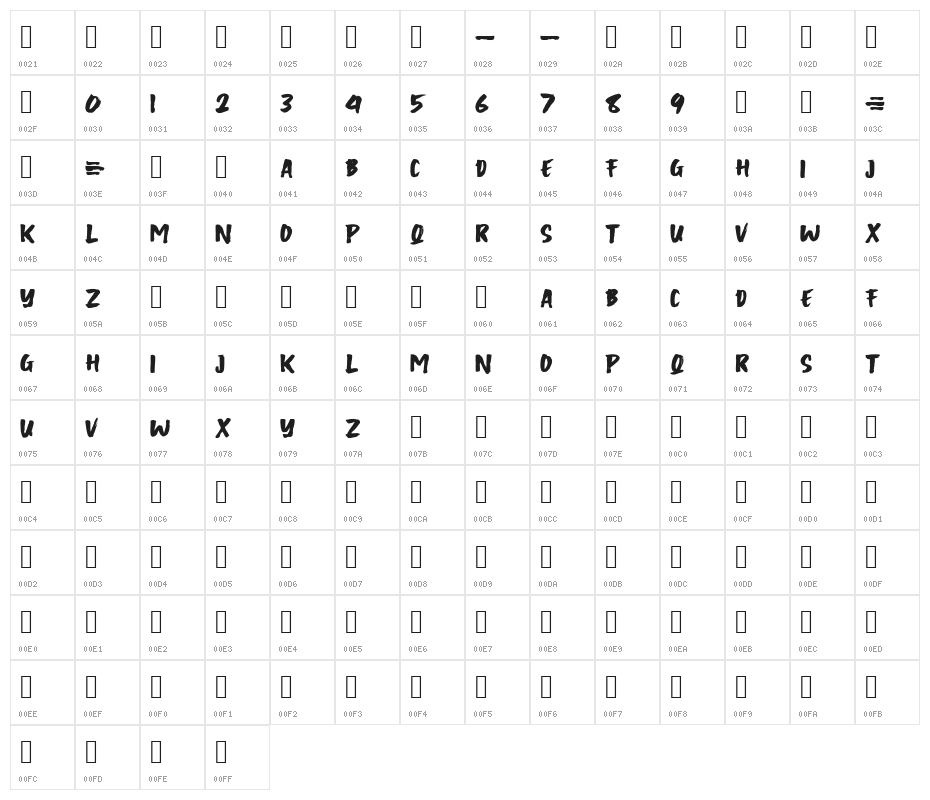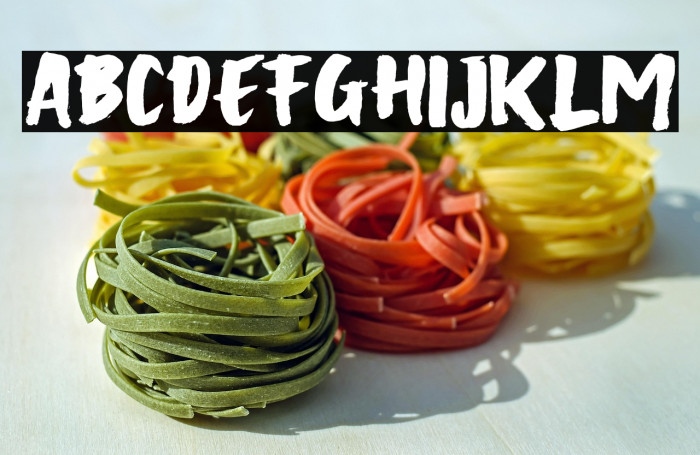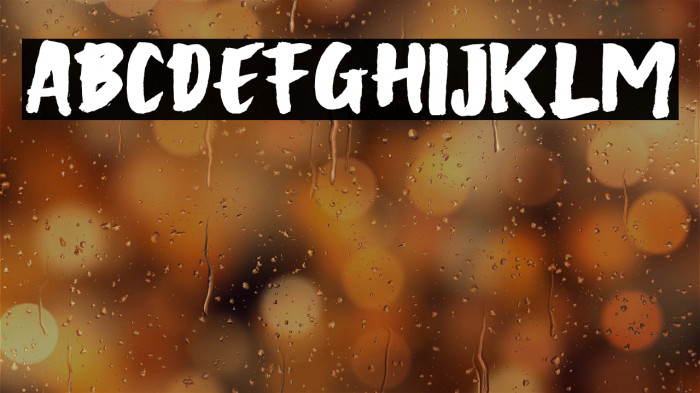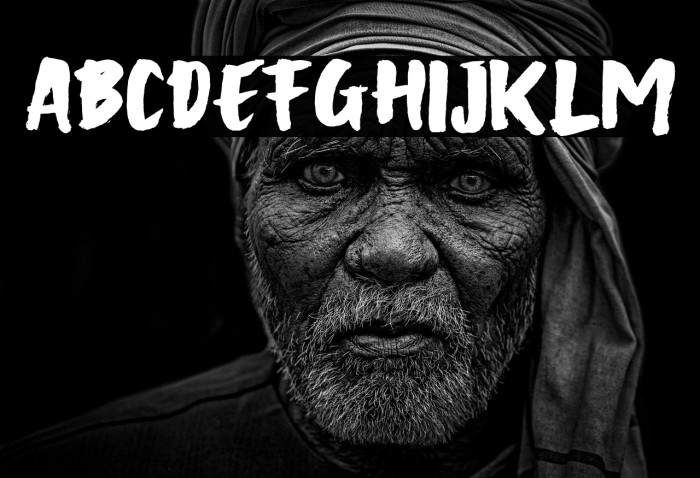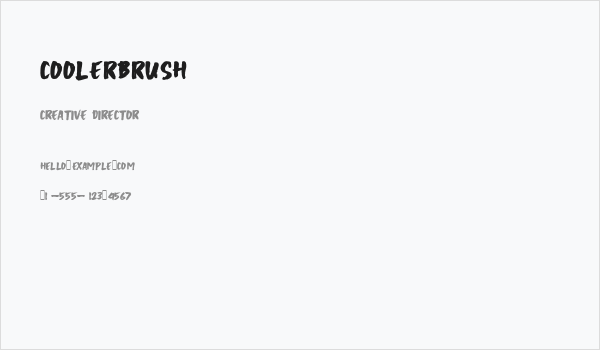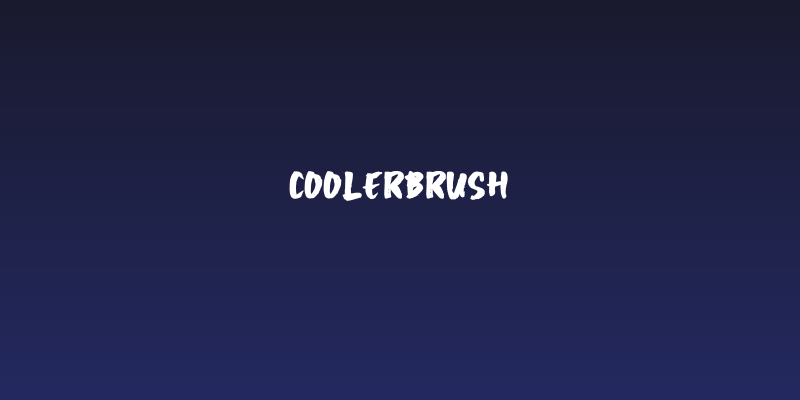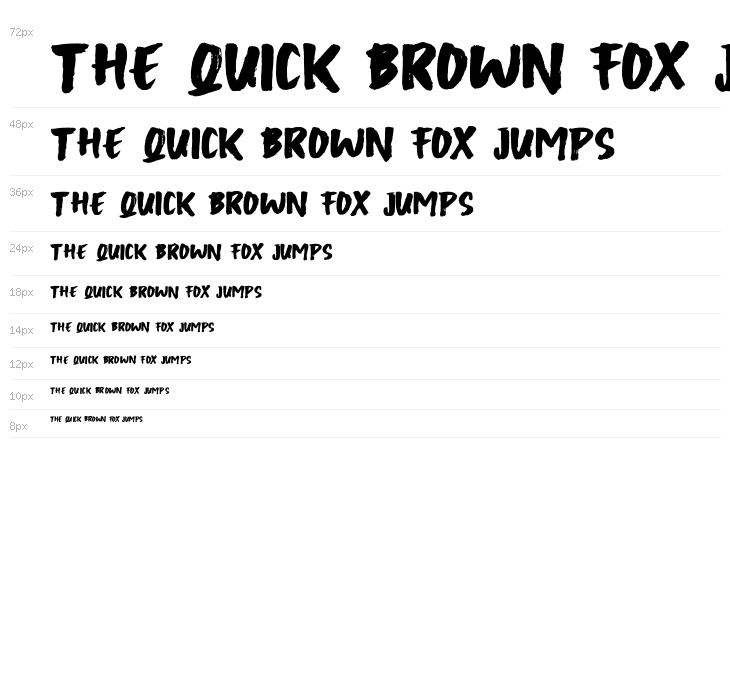
COOLERBRUSH Font
COOLERBRUSH Description
This font features a bold and dynamic brush style, characterized by its thick, uneven strokes that mimic the effect of hand-painted lettering. The letters have a lively and energetic appearance, with a slightly rough texture that adds to its handcrafted feel. The uppercase and lowercase letters maintain a consistent style, ensuring readability while still conveying a sense of artistic flair. The numbers and special characters are designed to match the overall aesthetic, making this font versatile for various creative applications.
| Proposed Projects | Ideal for branding, poster design, social media graphics, and any project requiring a bold, artistic touch. |